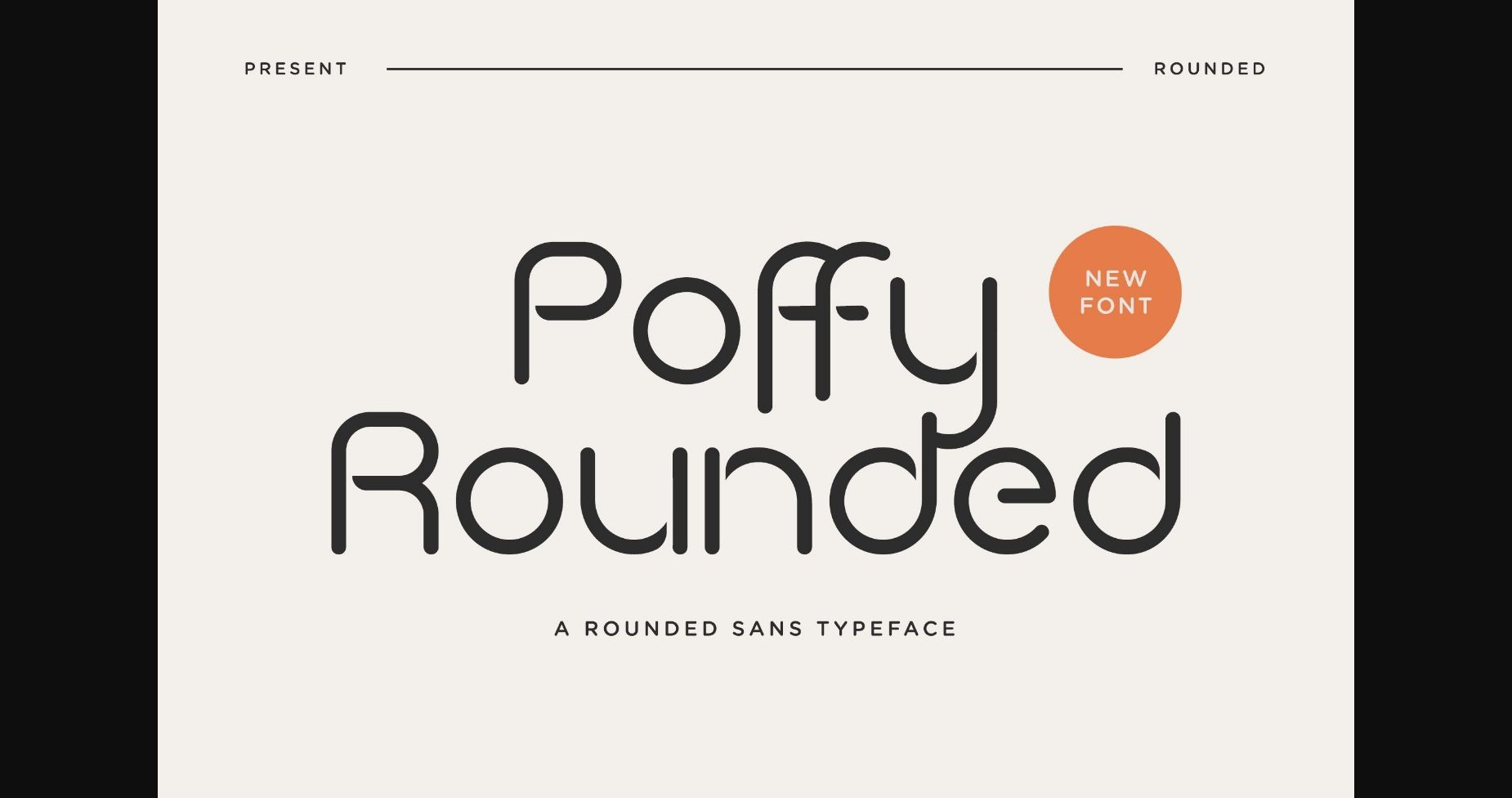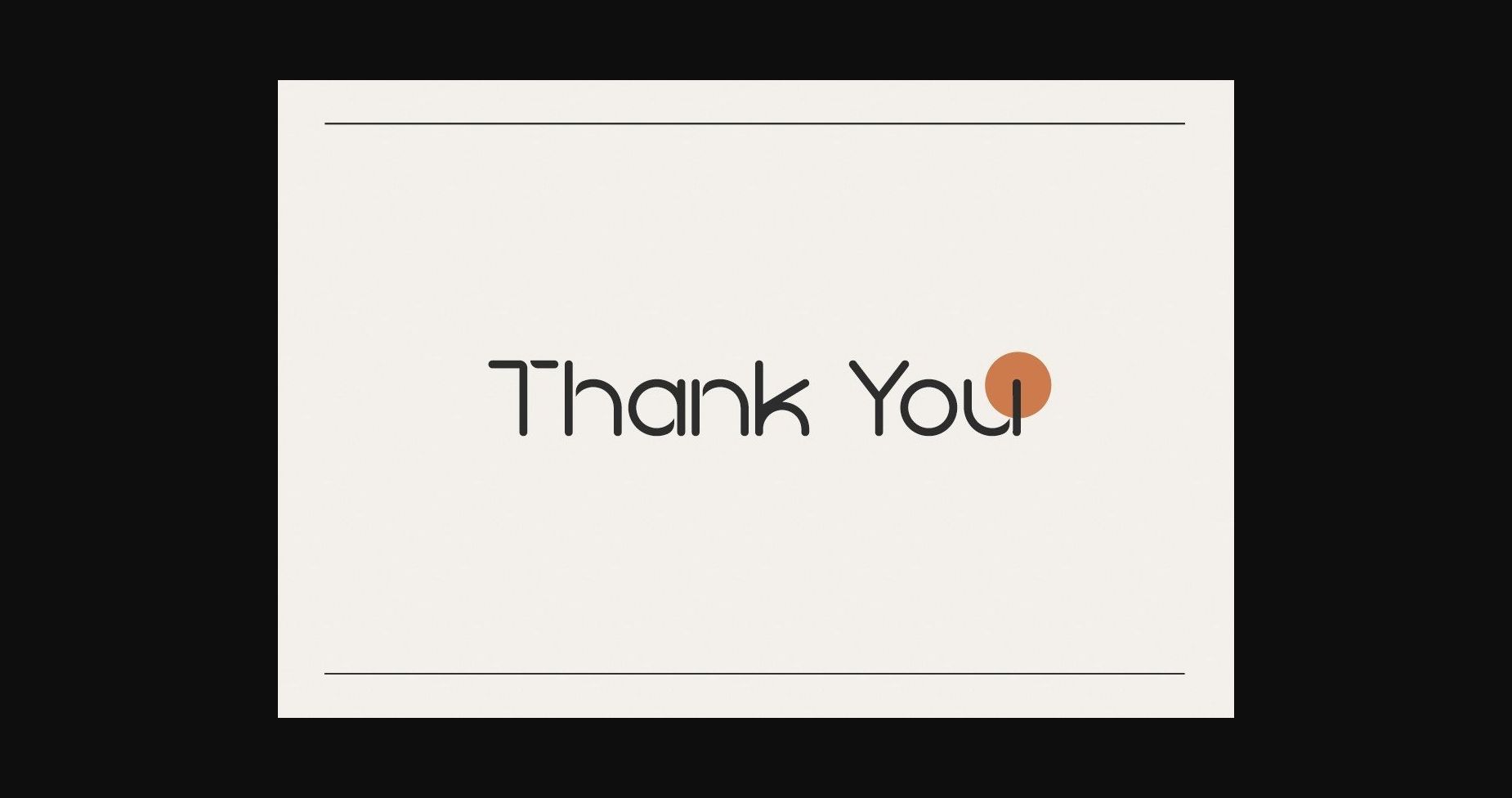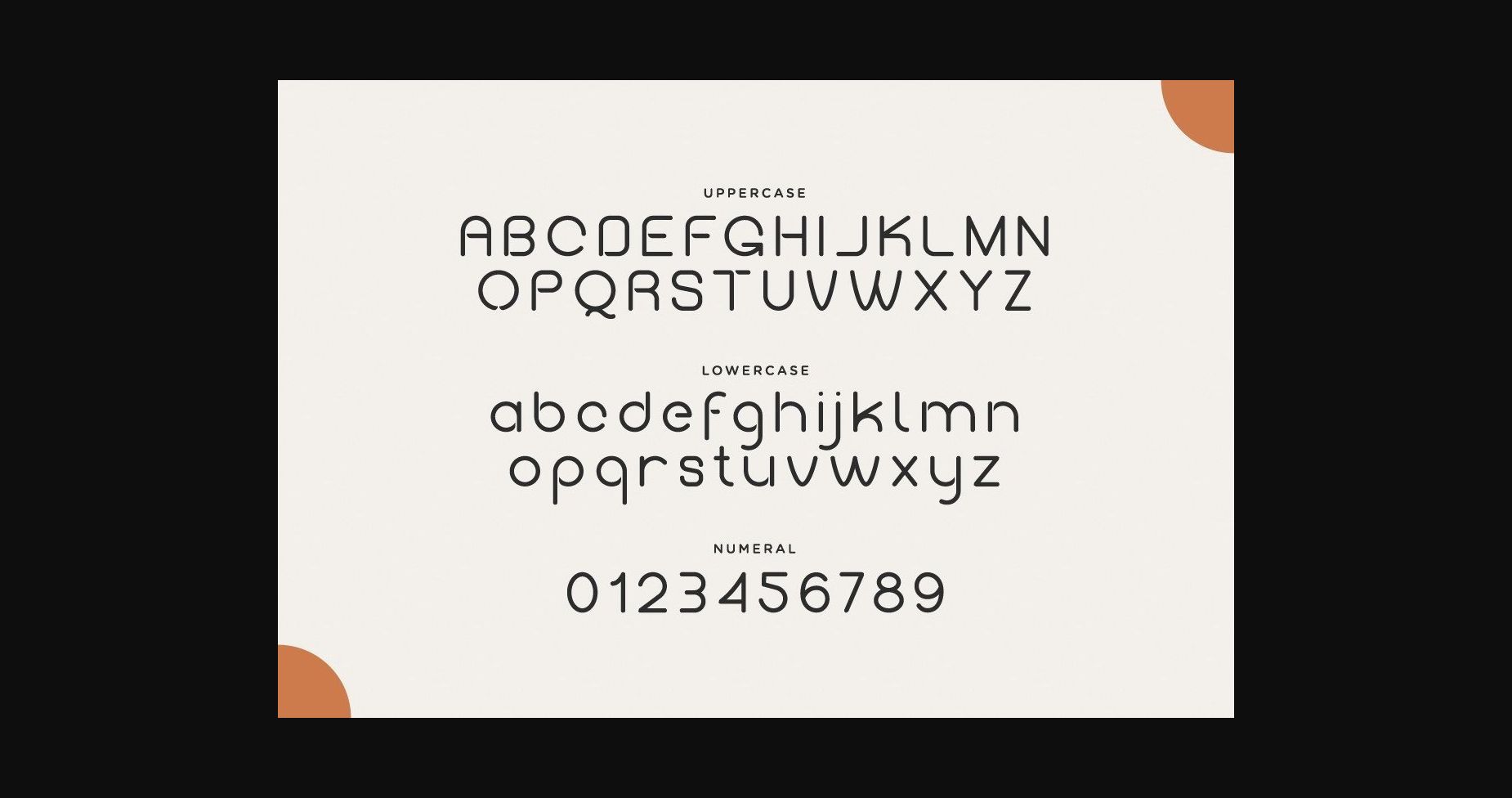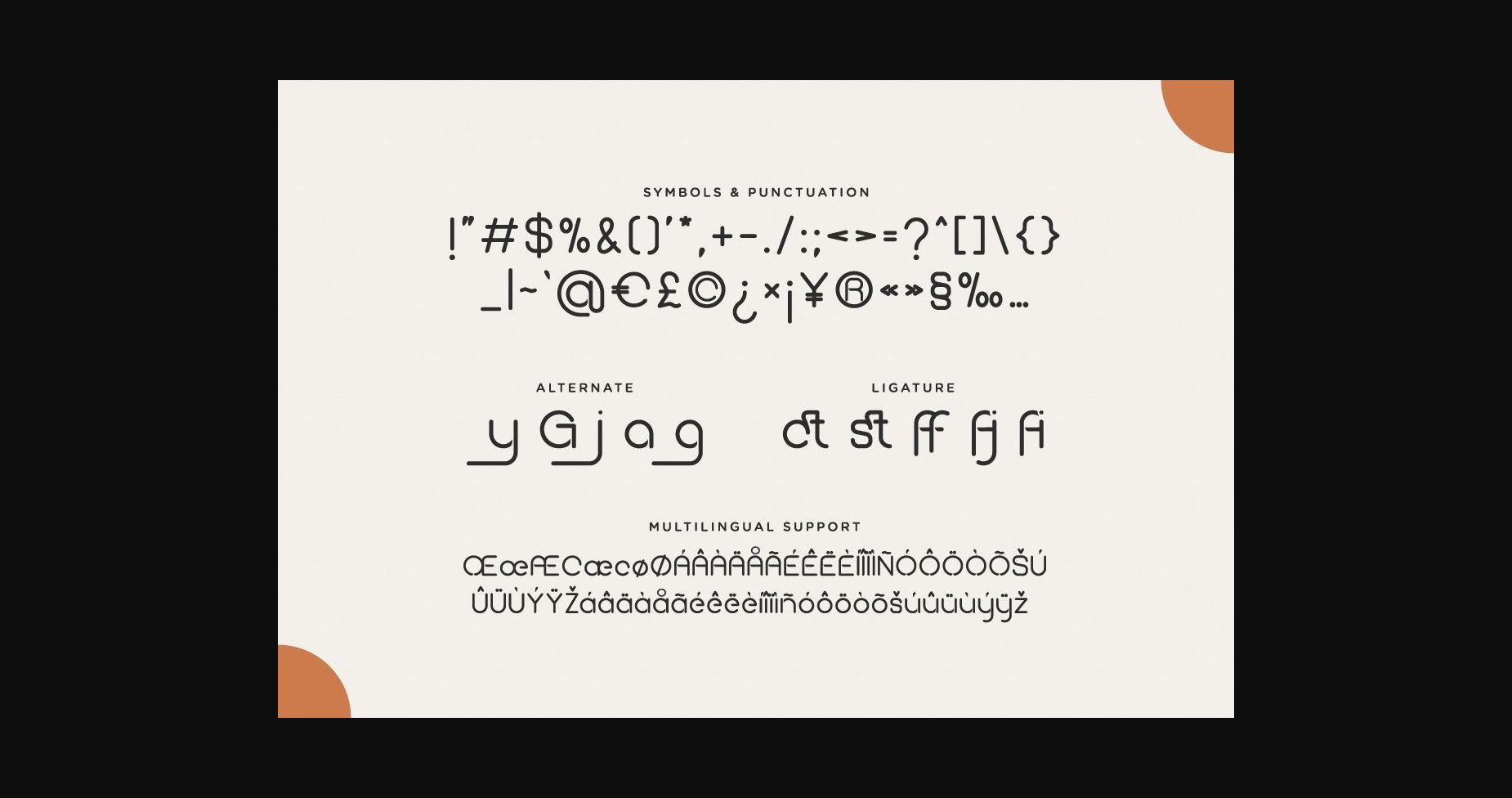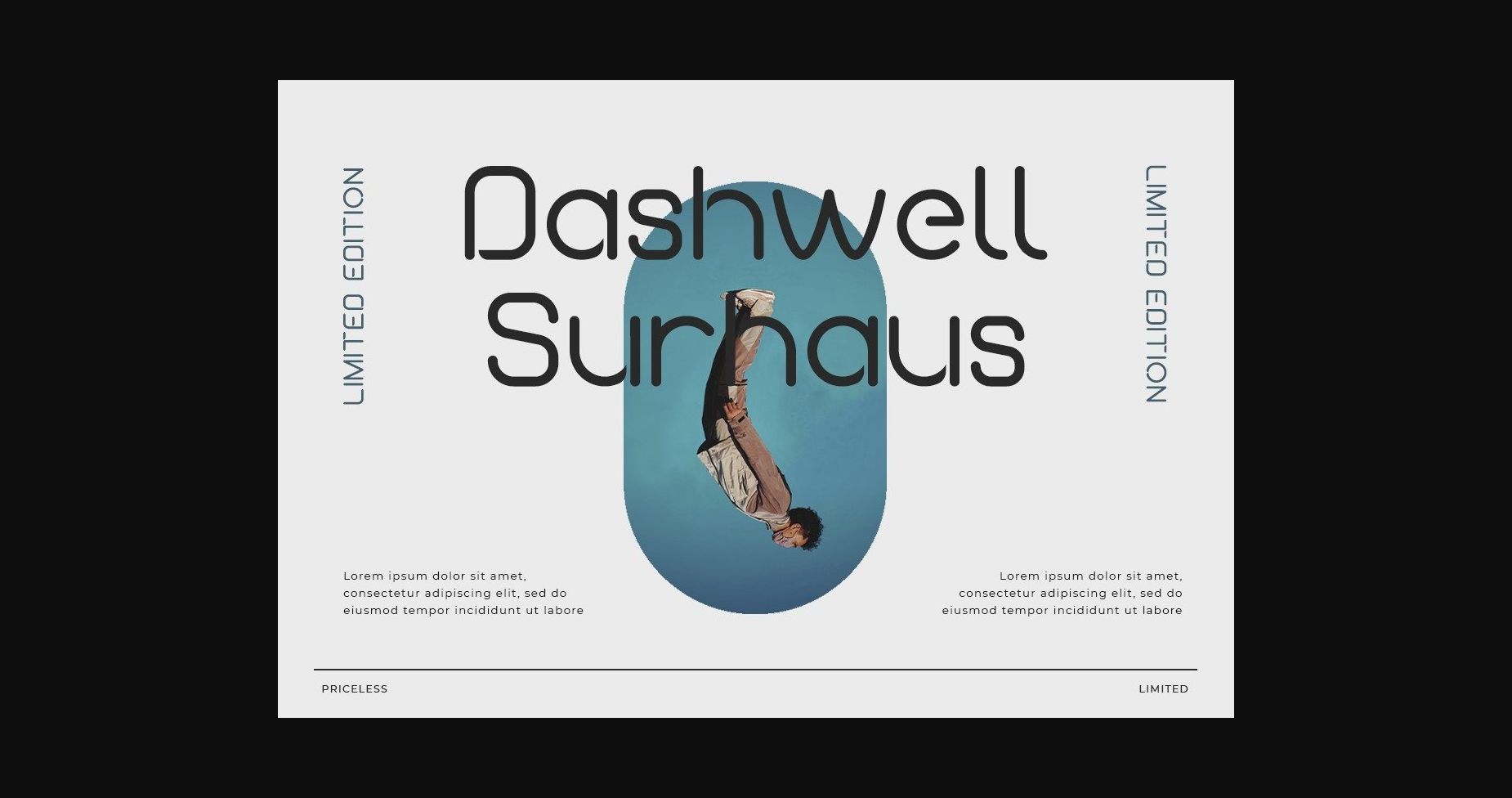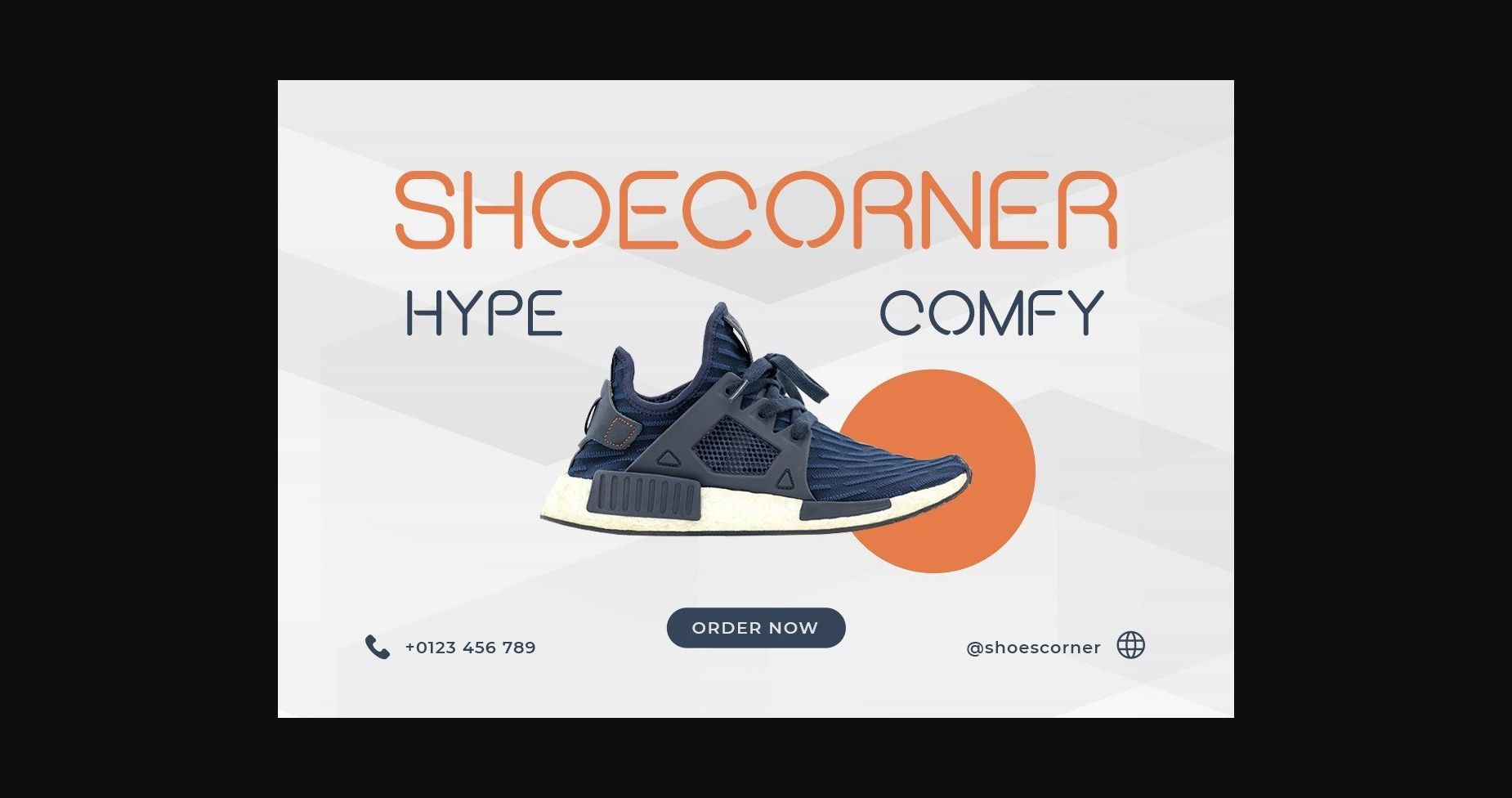
About Poffy Rounded Font
Poffy Rounded is a rounded Sans font.
It can easily be matched to an incredibly large set of projects, so add it to your creative ideas and notice how it makes them stand out!